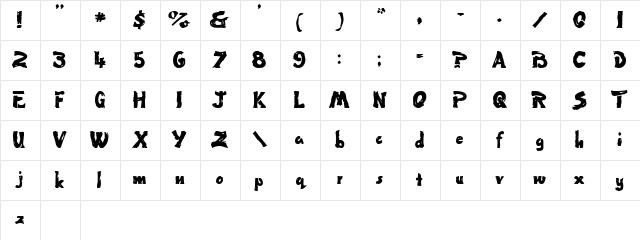
Complete KidzOnlySSK Bold glyph index. Displaying only characters natively supported by KidzOnlySSK Bold font.
KidzOnlySSK is a composed and adaptable typeface that performs quietly and consistently across a wide range of design contexts. Its bold stroke weight gives it real presence on the page.